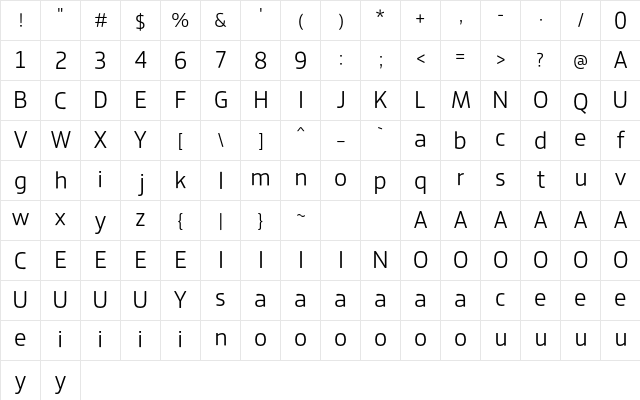
Jervinho Regular
| Designer | Soufiane Abid |
Design Context for Jervinho Typeface
Jervinho takes a measured approach to typography — its balanced proportions and neutral character make it a reliable workhorse for both digital and print work.